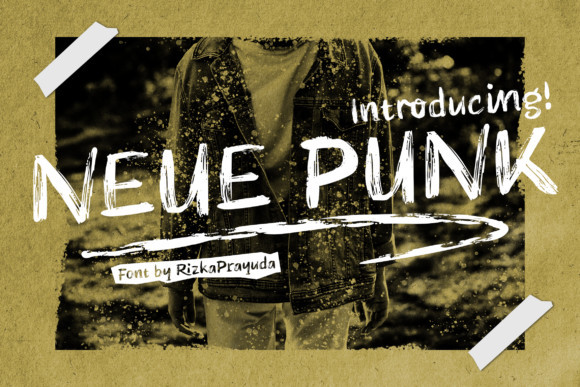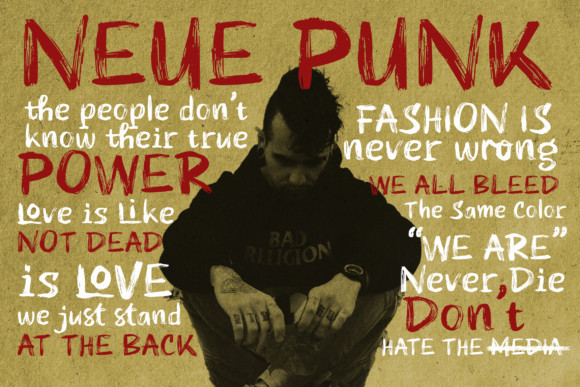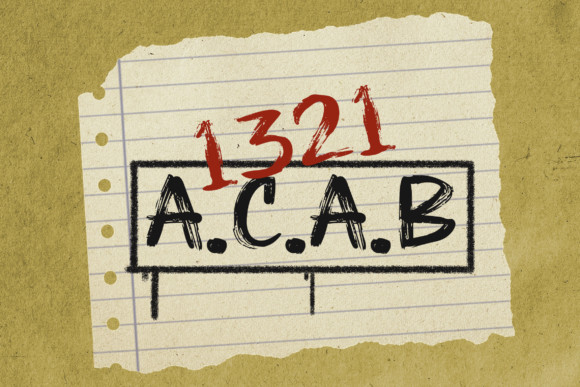
Neue Punk Font
Neue Punk is a cool and unique display font with a brush effect. It has an urban style that will add a grunge and edgy look to your designs.